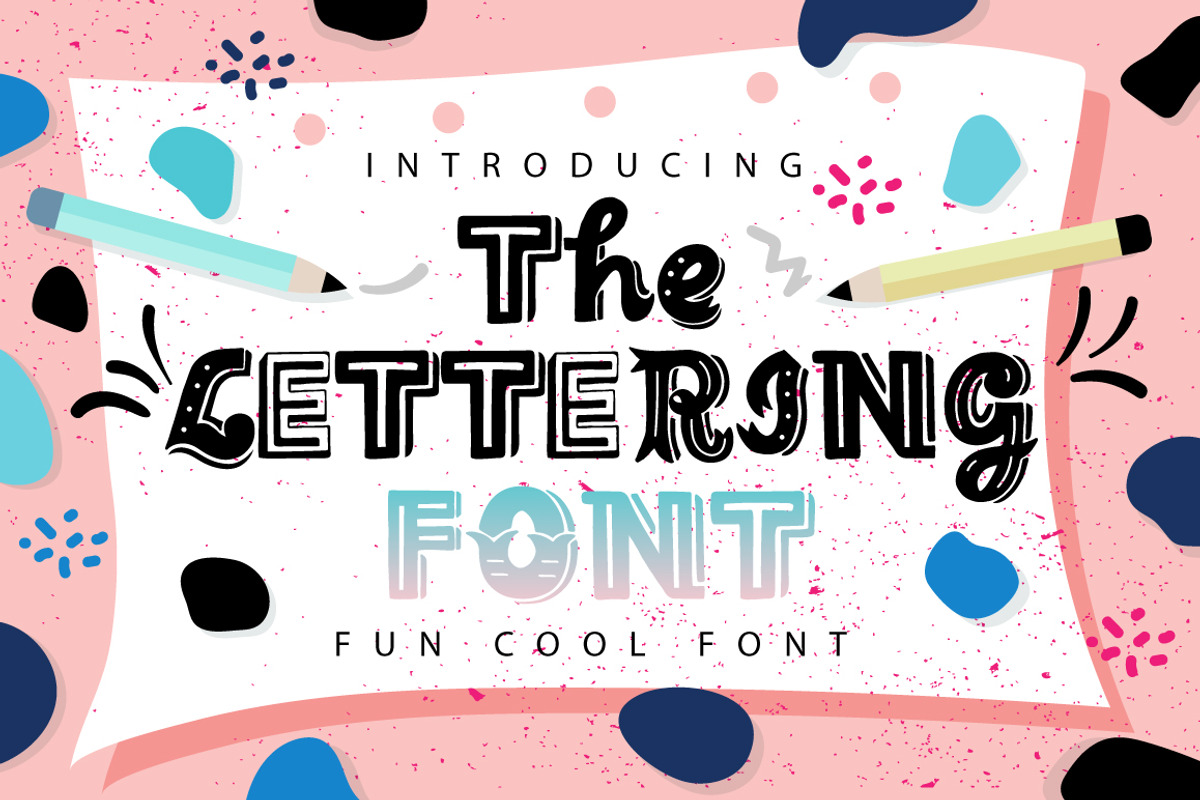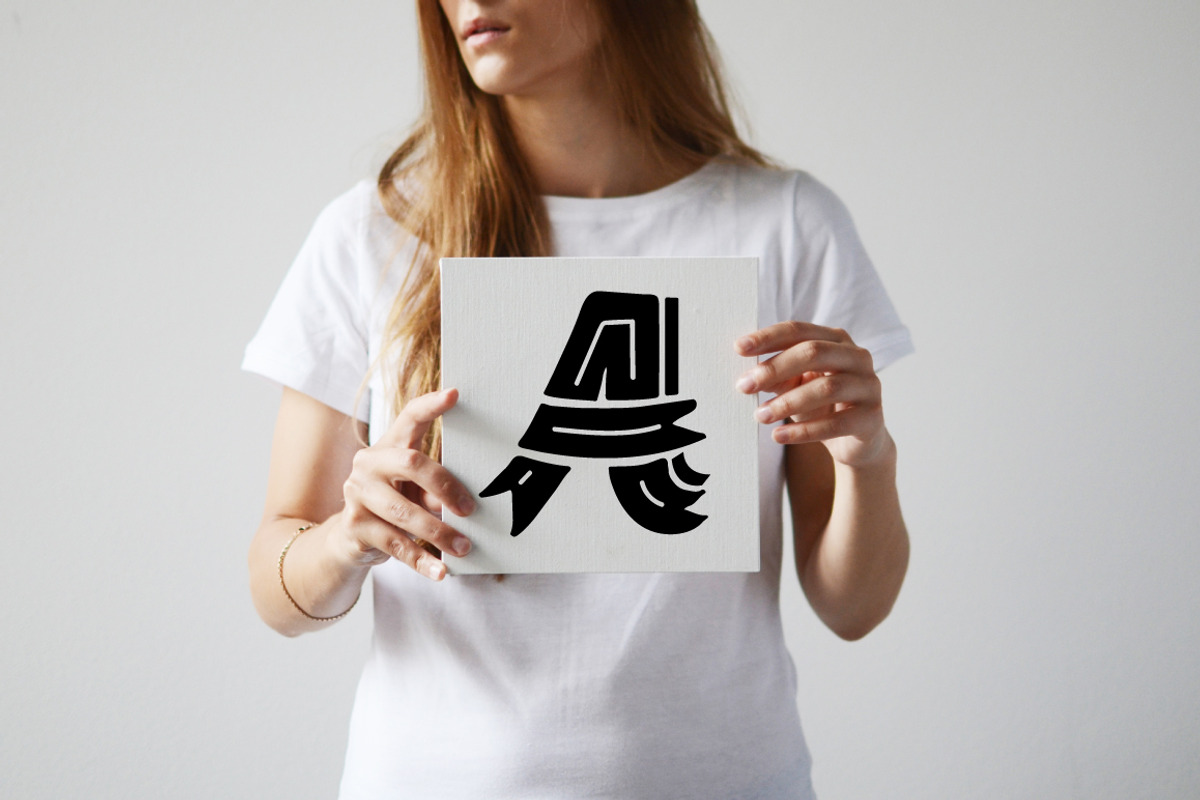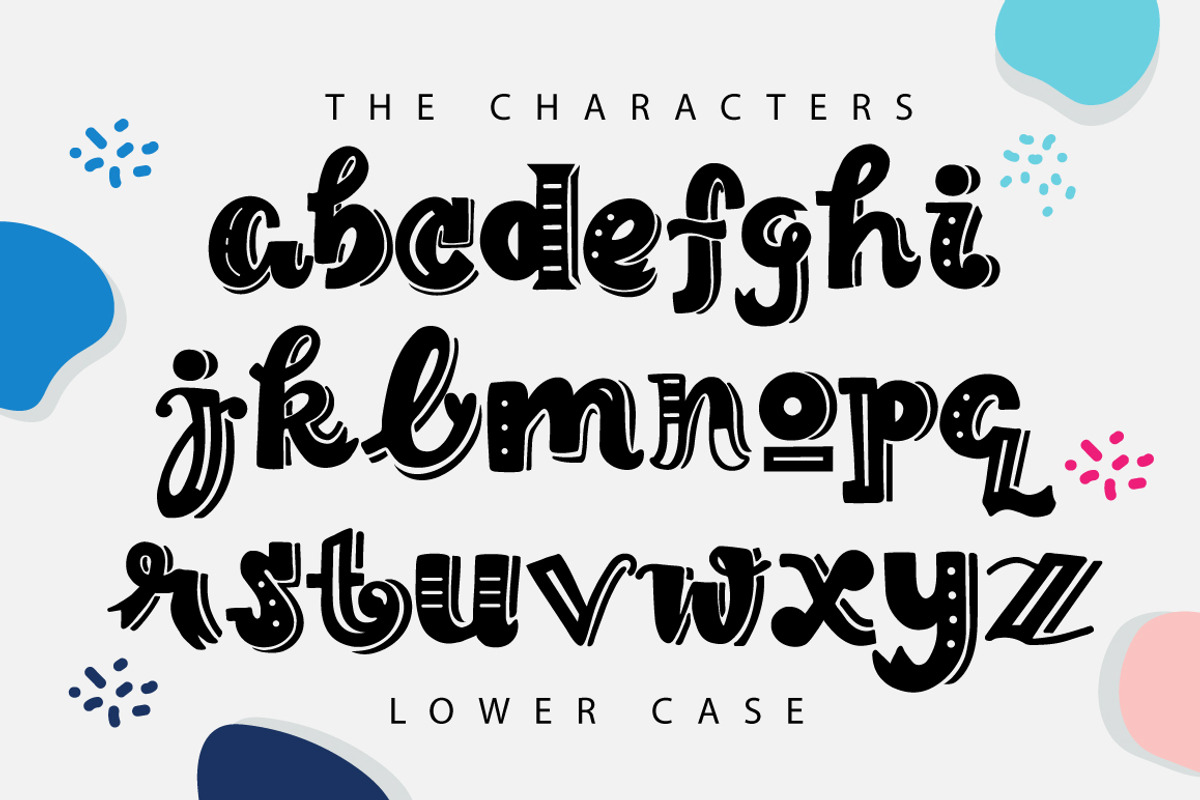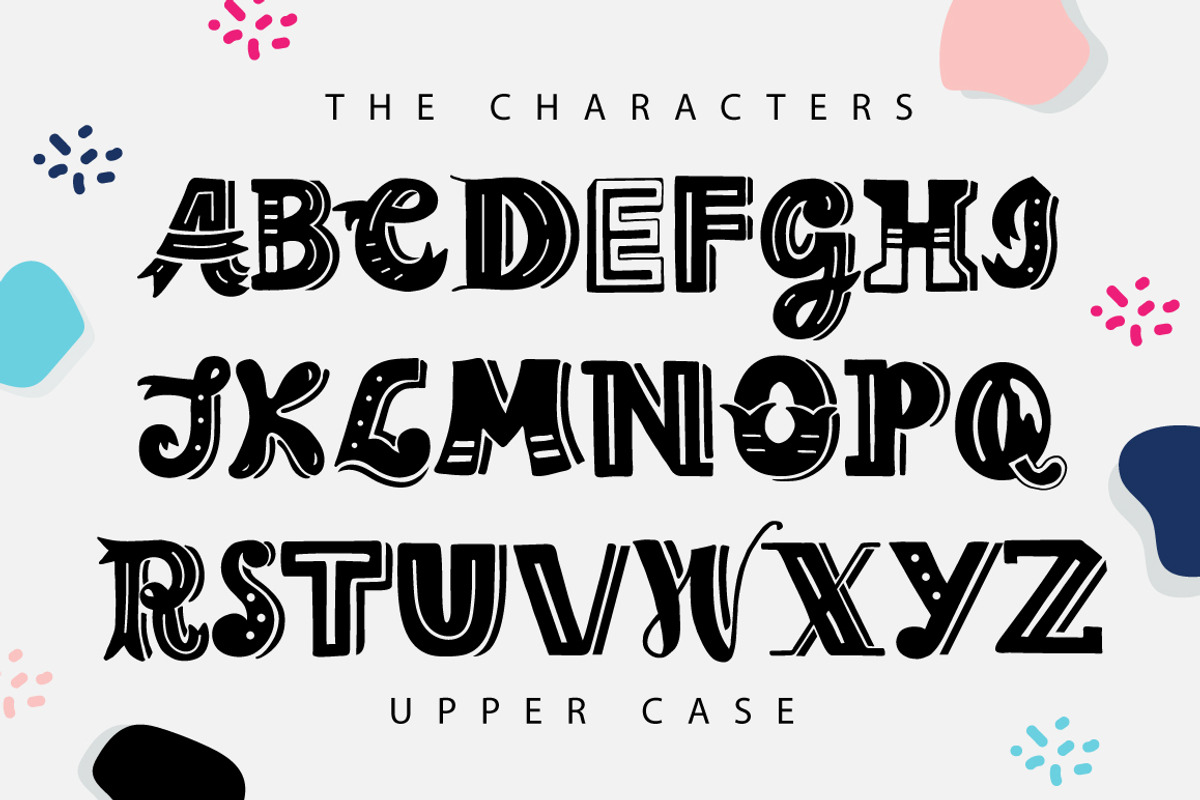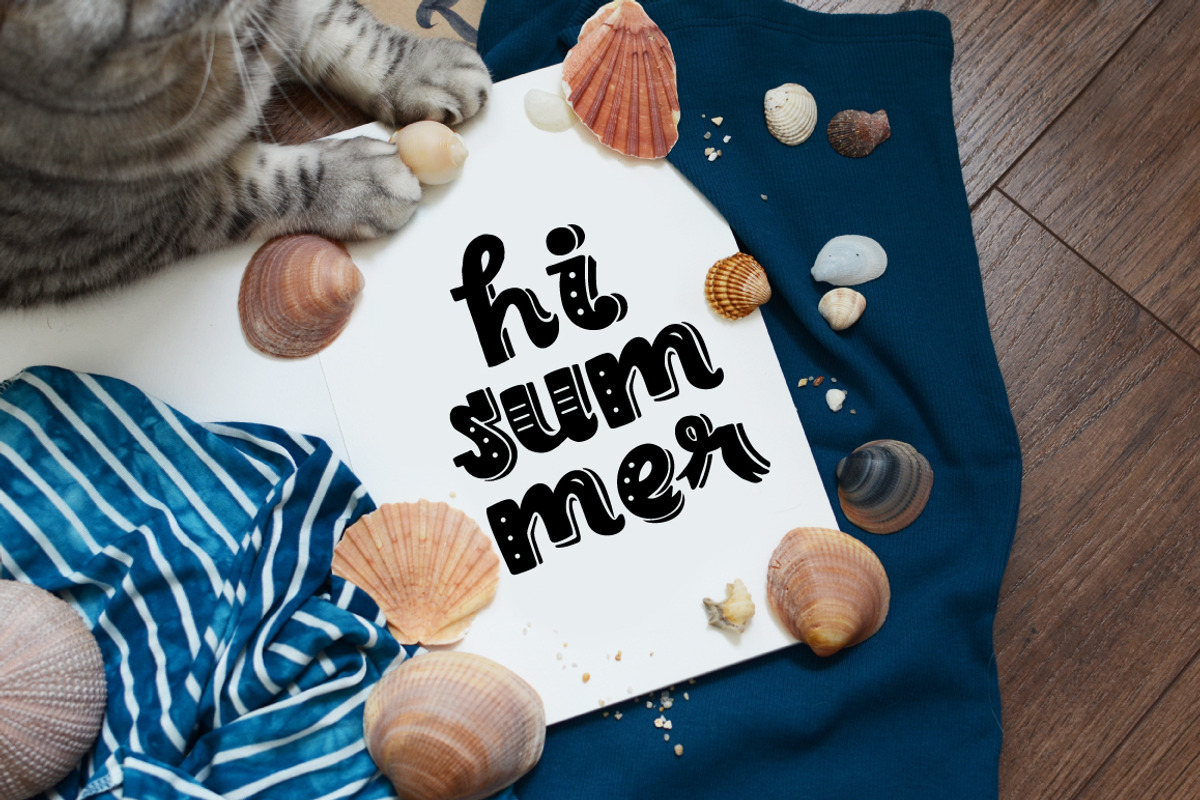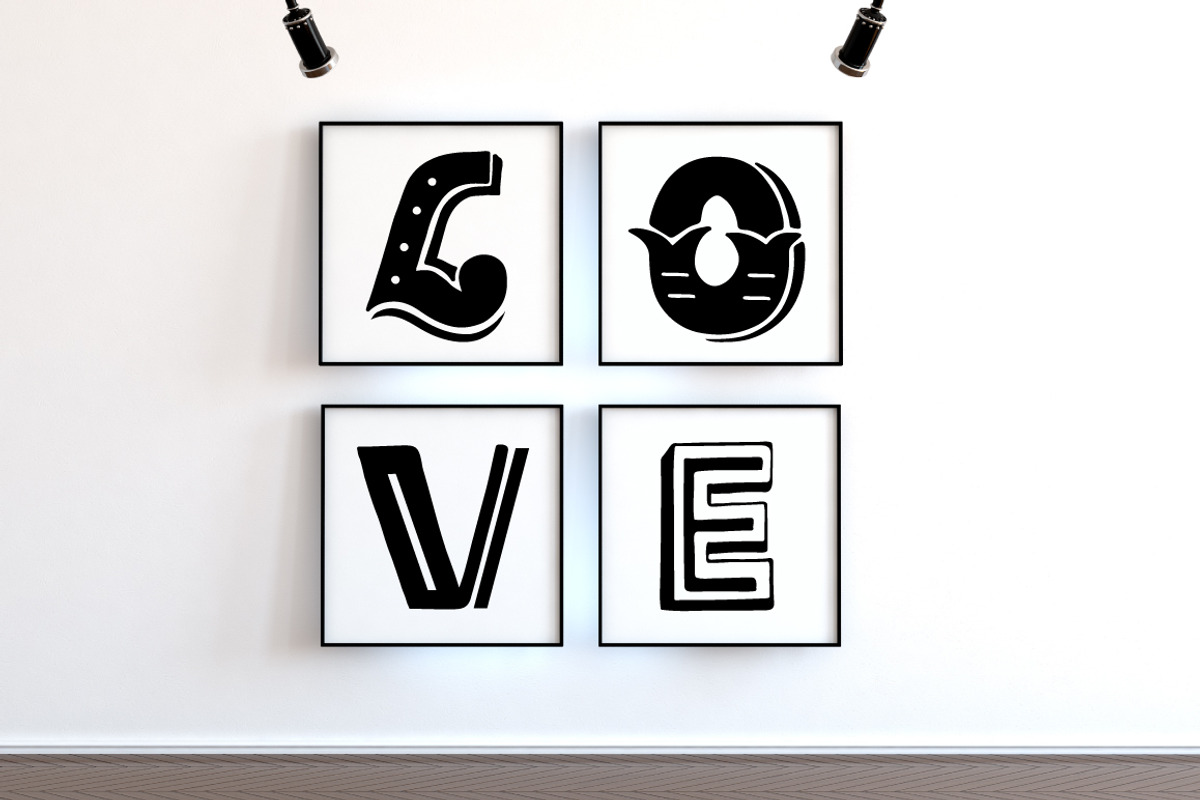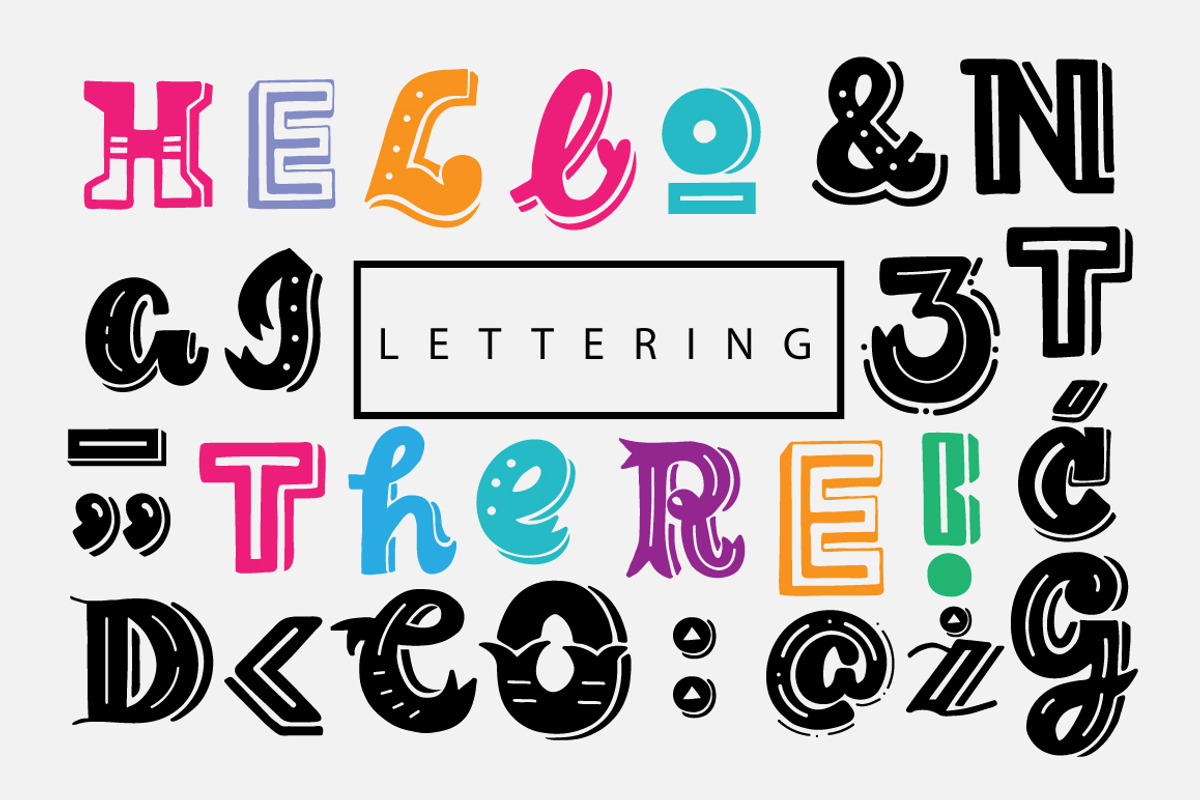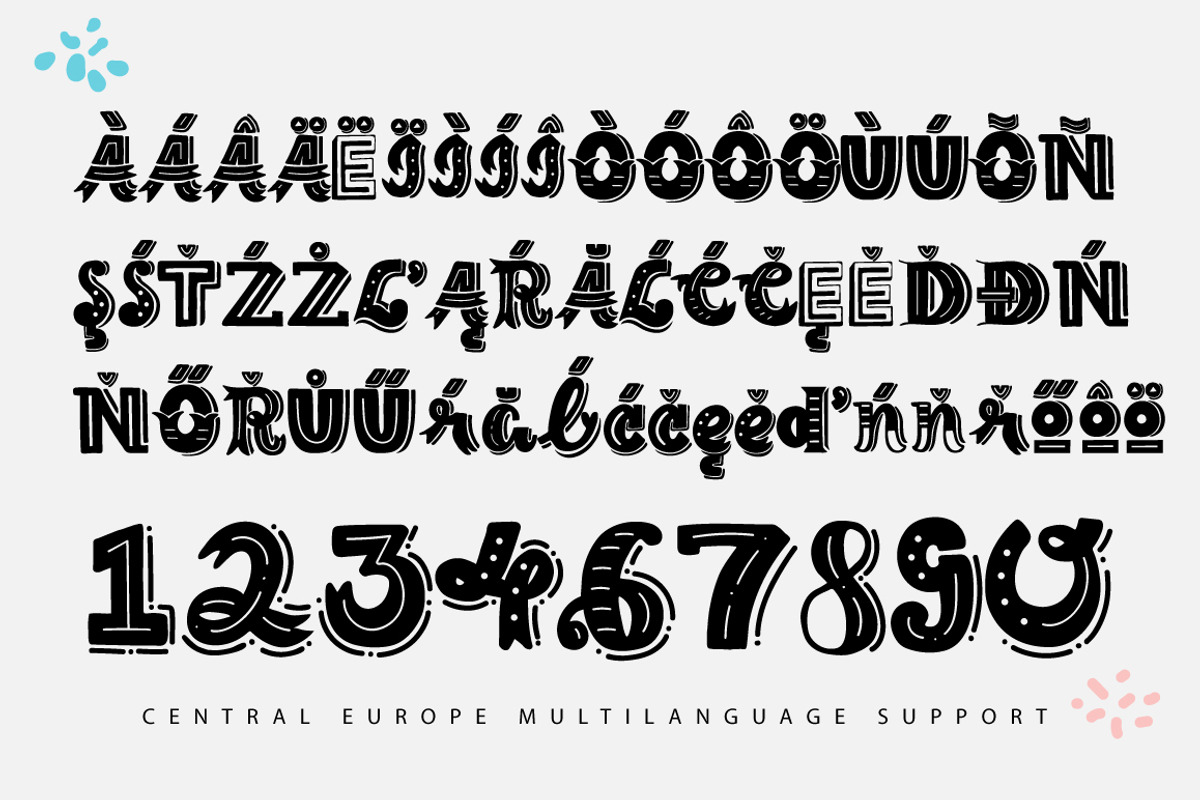
The Lettering Font
Hi there! The Lettering Font is a special hand lettered font. It has lettering style perfect for book title,home decoration, and many more.